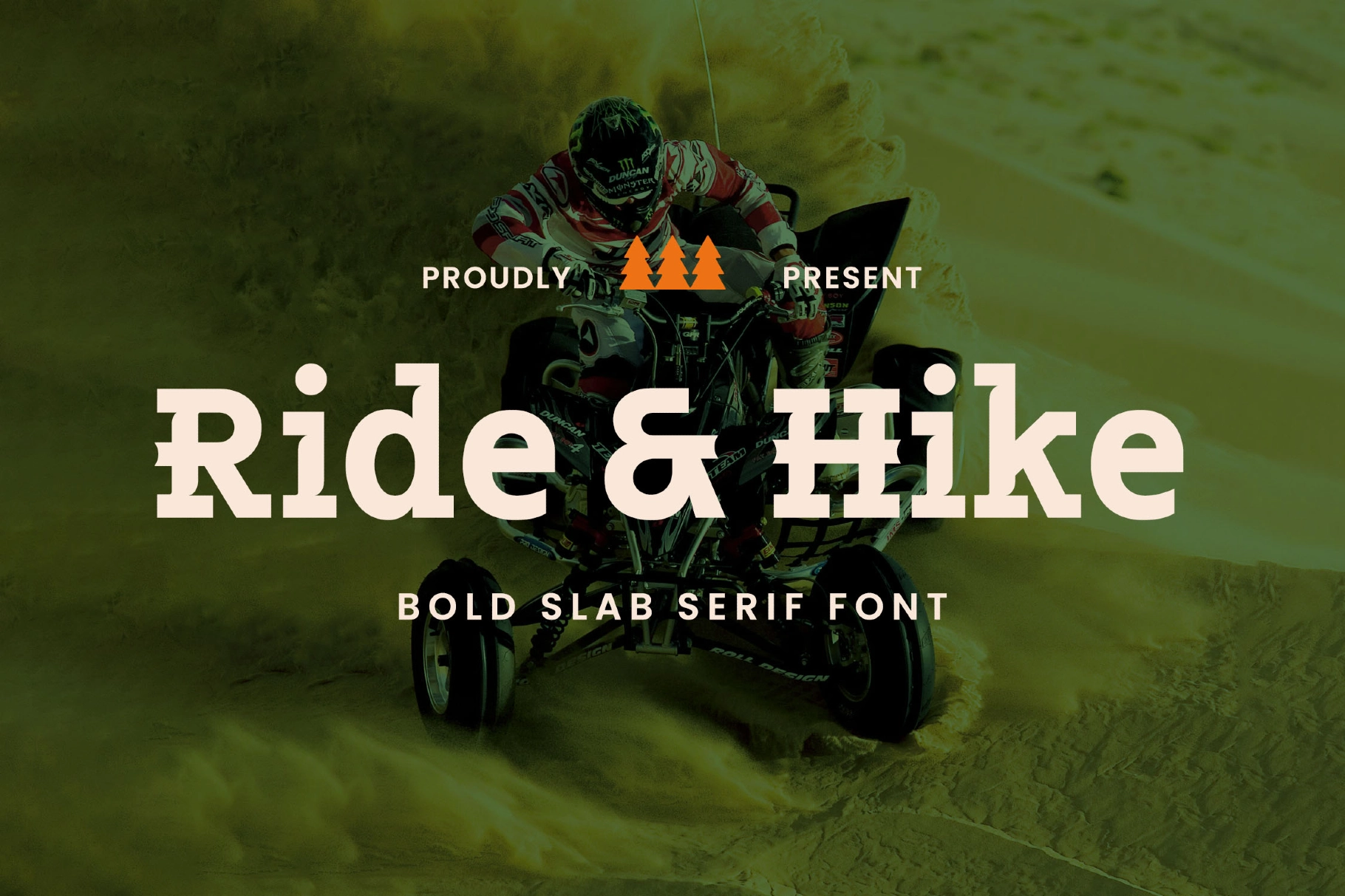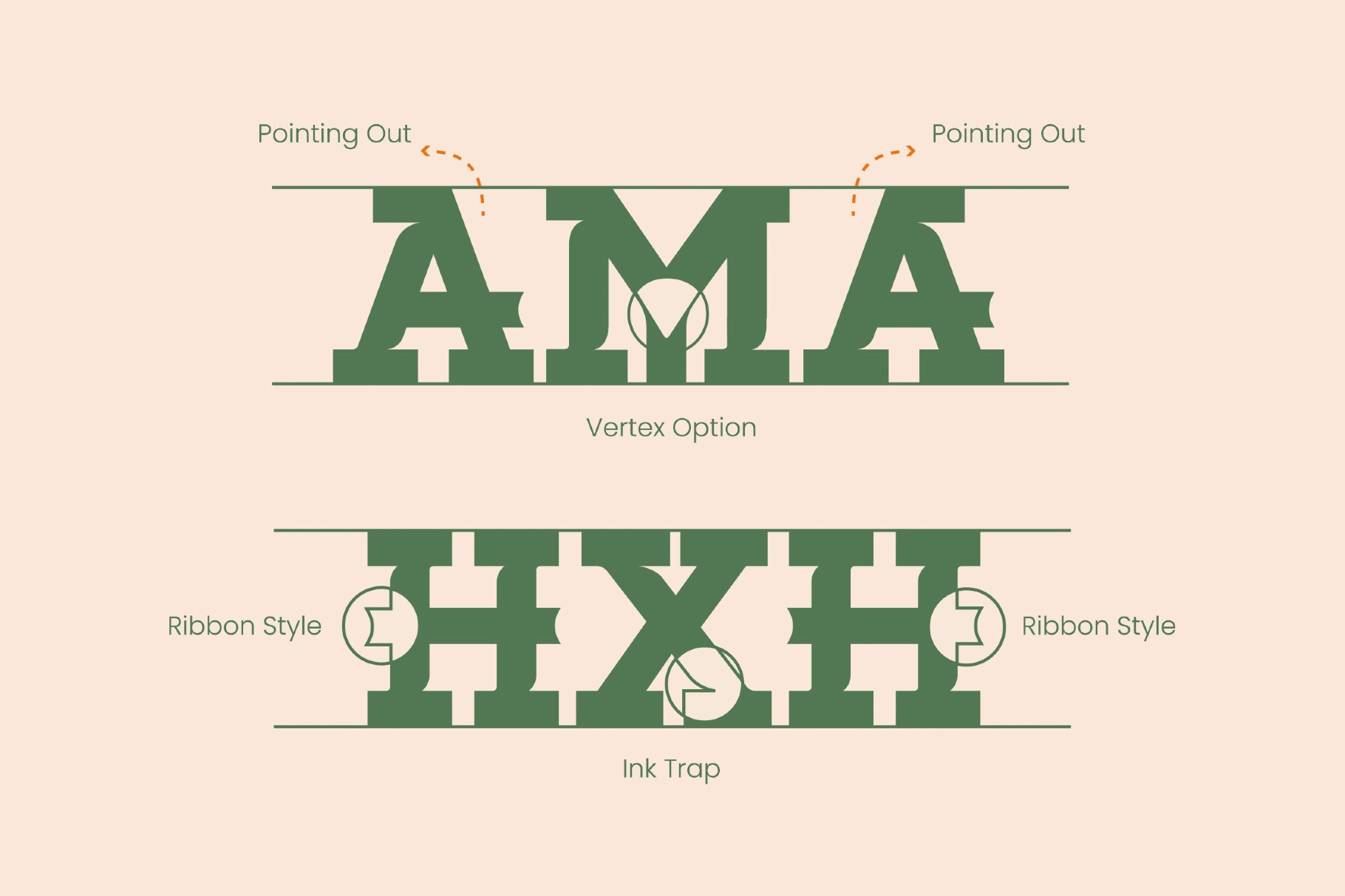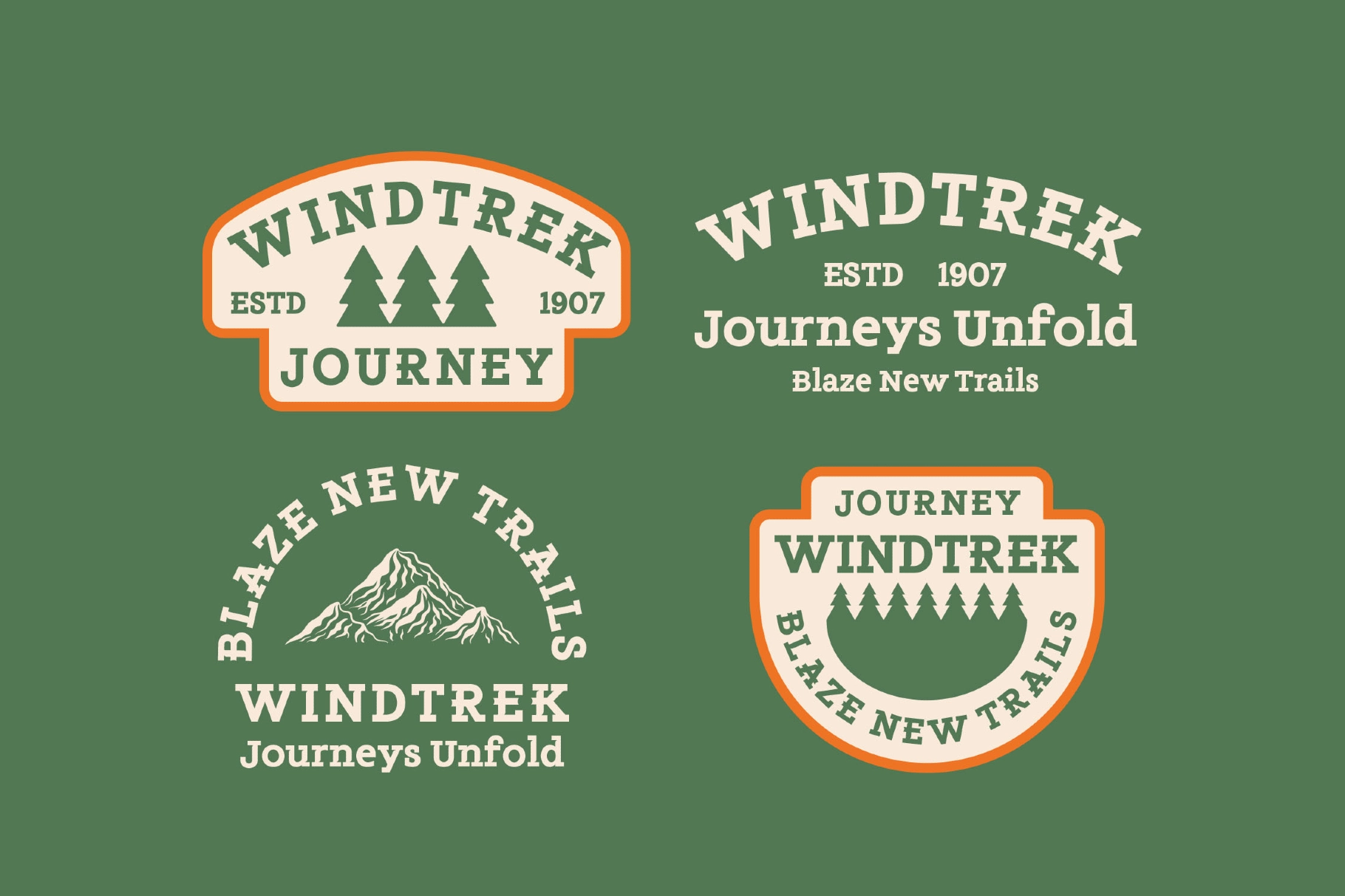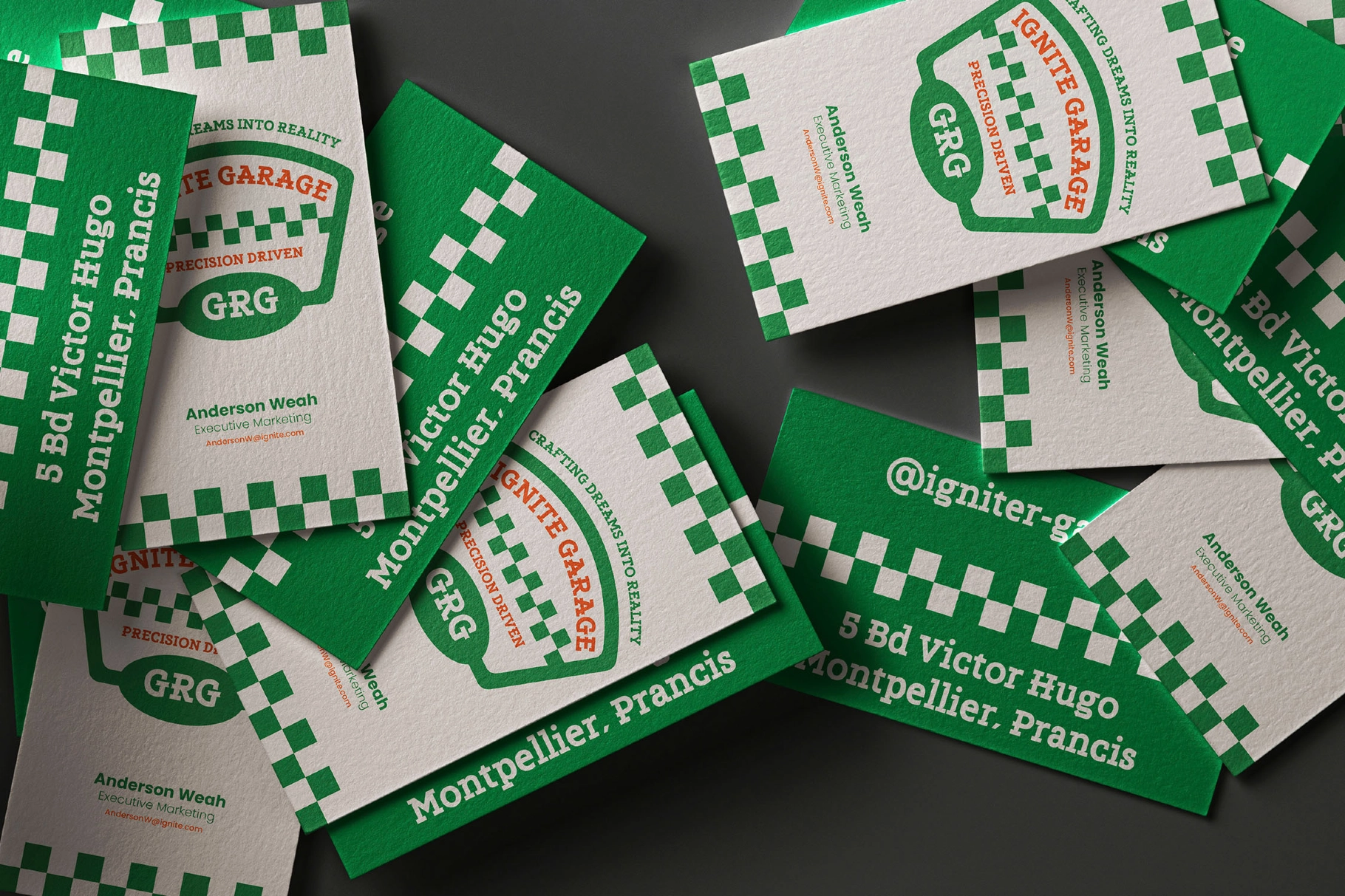
Ride & Hike - Slab Serif Font
Ride & Hike
Ride & Hike is a bold slab serif font that embodies strength and boldness. With its robust, blocky design, it's perfect for projects requiring a commanding presence. Ideal for branding, outdoor adventure themes, signage, posters, book covers, editorial design, web design, and merchandise, this font adds a bold and adventurous touch to logos, headlines, and body text in both print and digital formats.
Designed with meticulous attention to detail, Ride & Hike combines rugged slab serif aesthetics with modern typographic techniques, offering a reliable choice for designers seeking to create captivating designs.